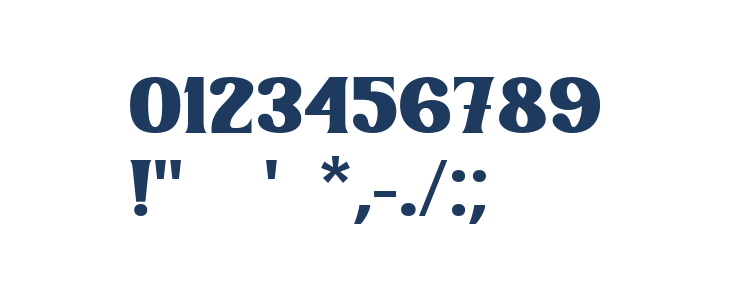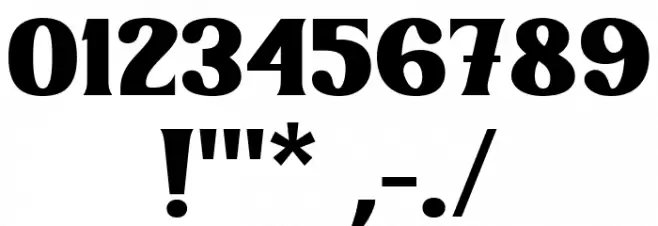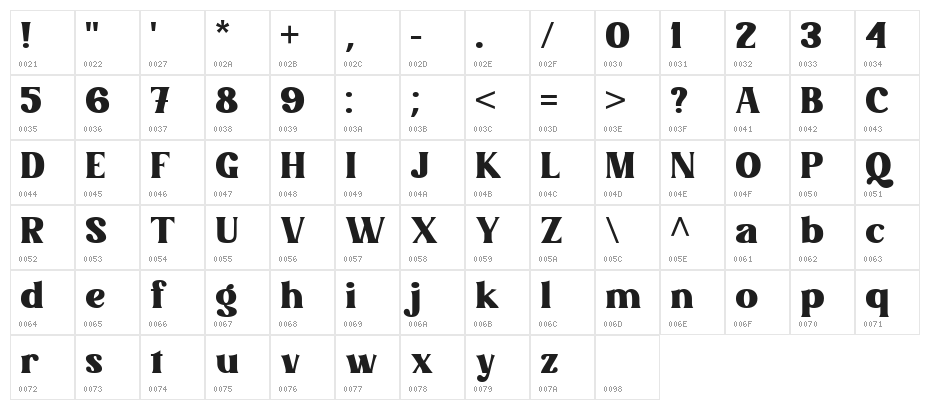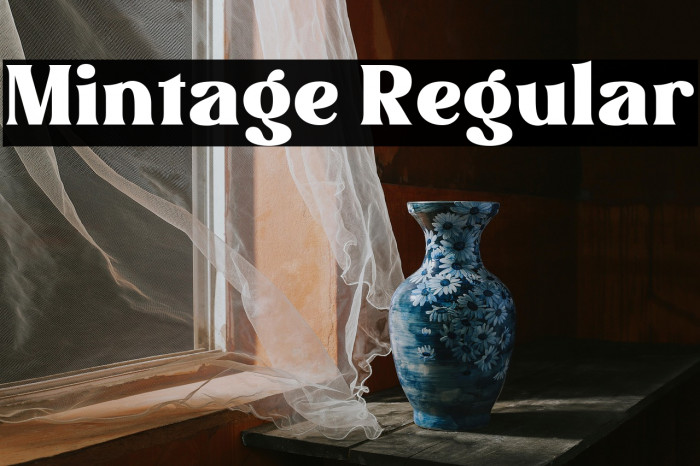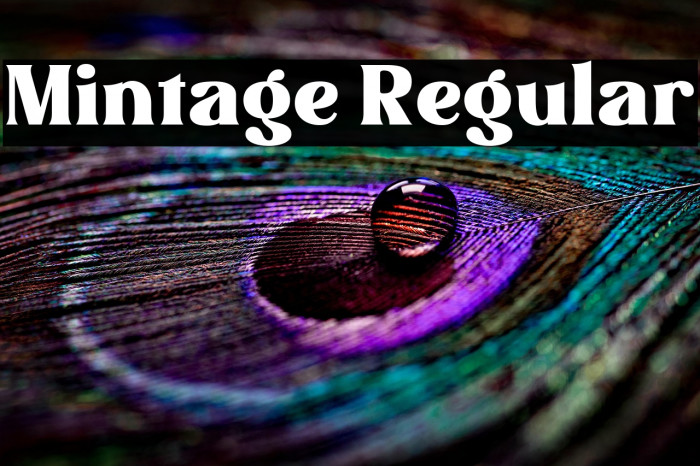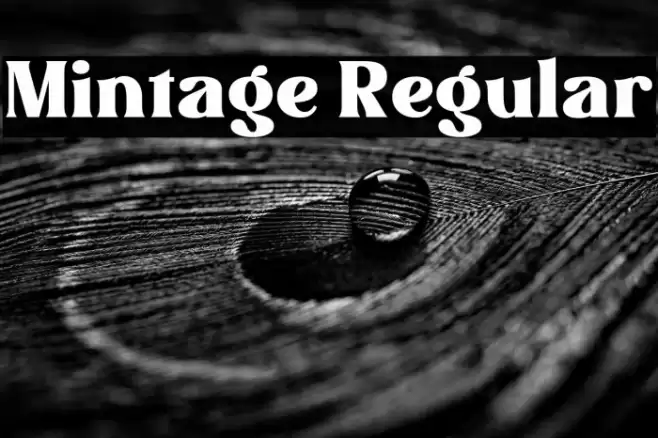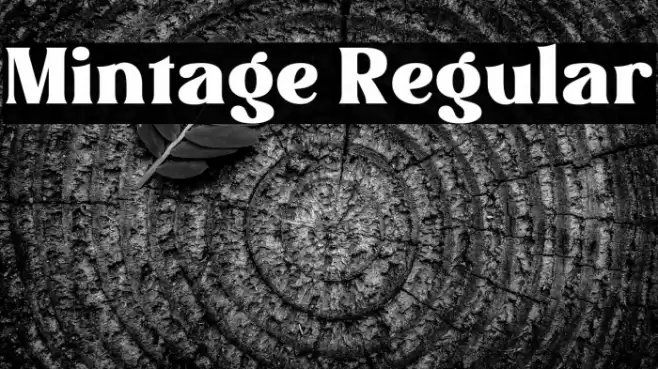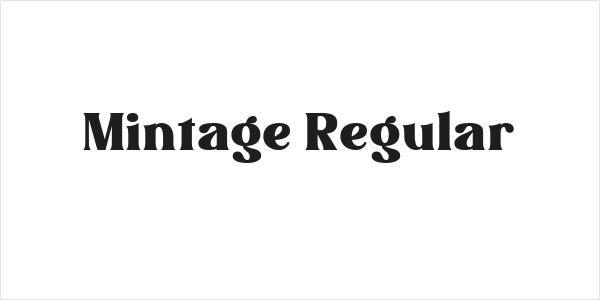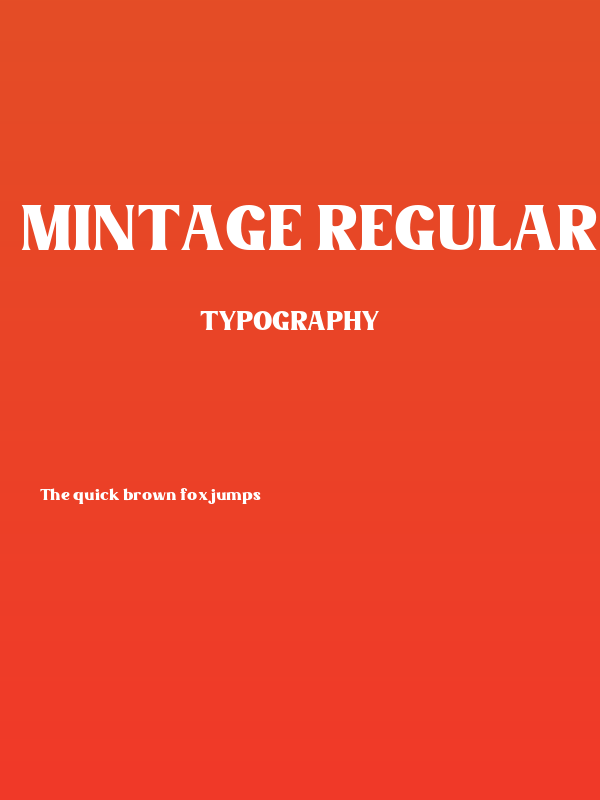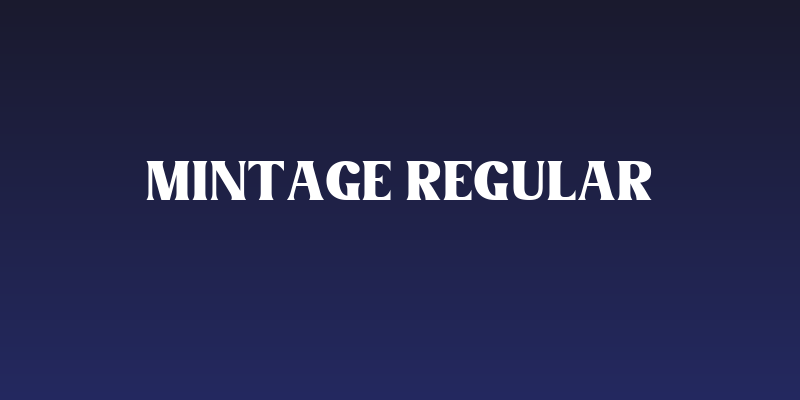
Mintage Regular Font
Mintage Regular Description
This font exhibits a bold and dynamic presence with its thick, sturdy strokes and slightly condensed letterforms. The uppercase characters are robust and commanding, while the lowercase letters maintain a consistent weight, offering a harmonious balance. The numerals are equally bold, ensuring clarity and impact. Special characters are designed with the same boldness, making them stand out effectively. The overall design is reminiscent of vintage typefaces, yet it maintains a modern appeal, making it versatile for various design applications.
Overall StyleVintage
Proposed ProjectsIdeal for branding, headlines, posters, and any project requiring a strong, impactful typeface.